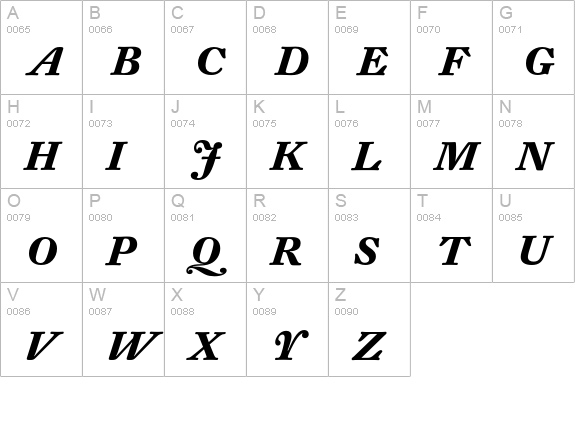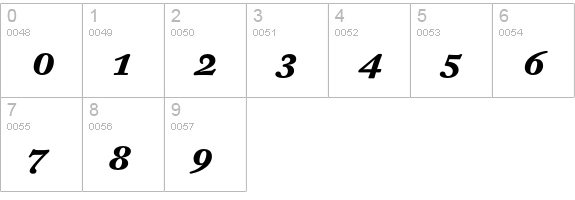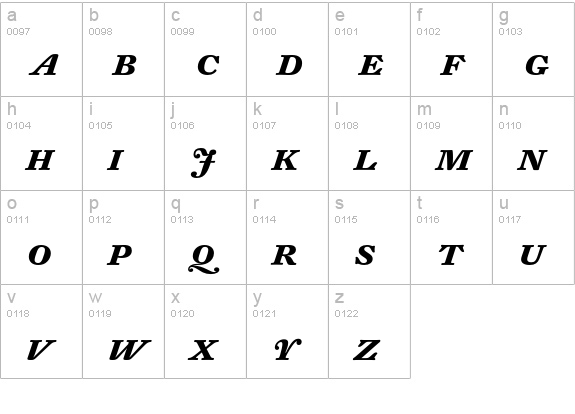
DTLFleischmannT-CapsBoldItalic is a striking and sophisticated font that exudes a sense of elegance and modernity. Its bold and italic design makes it perfect for adding emphasis and style to your projects. The sharp angles and sleek curves of this font create a visually appealing look that is sure to capture attention. Best of all, DTLFleischmannT-CapsBoldItalic is available for free download at FontsMarket.com. This means you can easily access this stunning font and use it in your designs without any cost. Whether you're working on a professional project or simply looking to add a touch of flair to your personal creations, DTLFleischmannT-CapsBoldItalic is a versatile and eye-catching font that is sure to impress. Download it today and elevate your designs with this exquisite typeface.